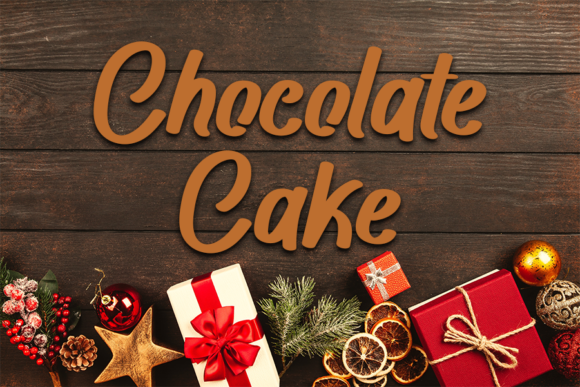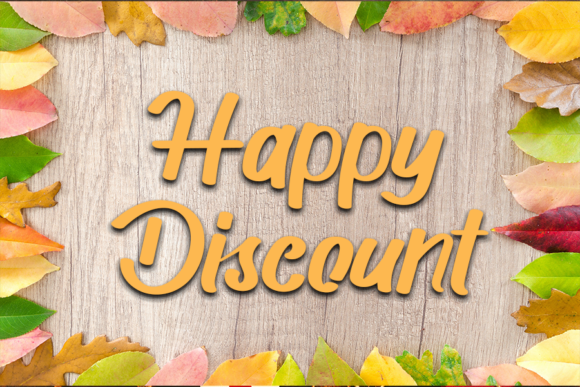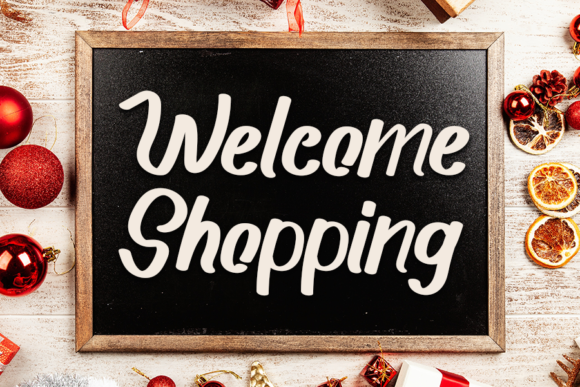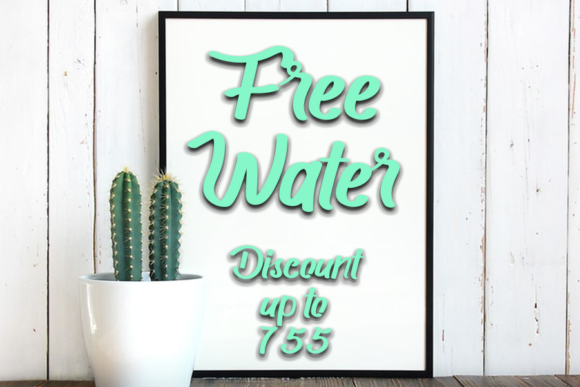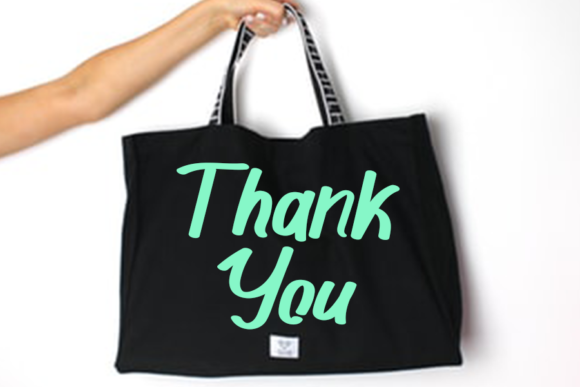
Chocolate Cake Font
About Chocolate Cake Font
Chocolate Cake is a beautiful and charming handwritten font. Its natural and unique style makes it incredibly fitting to a large pool of designs. The only limit is your imagination!